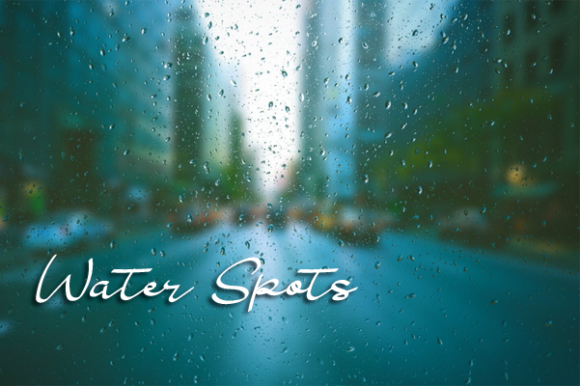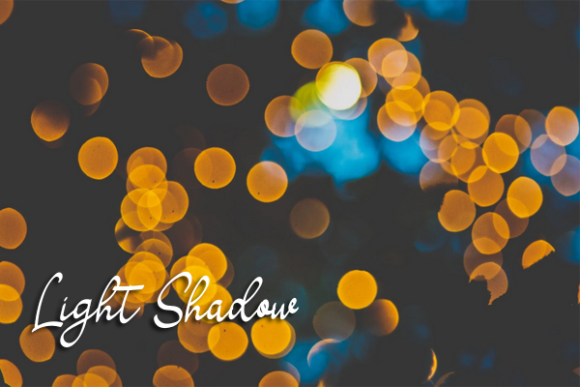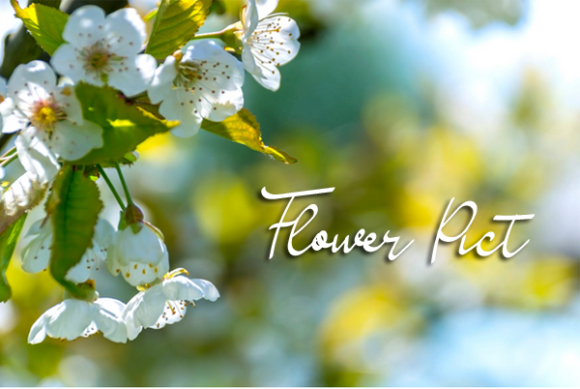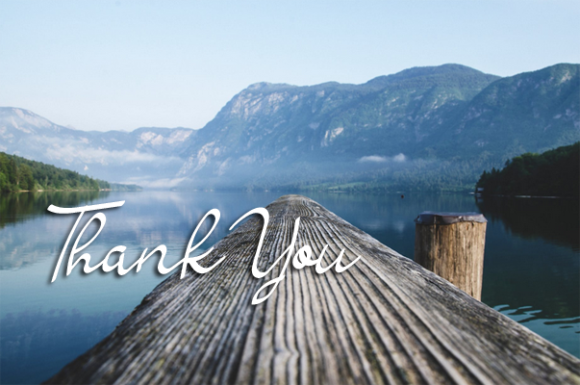
Introducing Halilintar Font: The Epitome of Elegance and Sophistication
Are you on the hunt for a font that exudes beauty, elegance, and refinement? Look no further than Halilintar Font, a stunning lettered and graceful script font that is sure to captivate your audience. With its ravishing style and versatility, Halilintar is the perfect choice for designers and crafters seeking to create breathtaking wedding invitations, exquisite stationary art, eye-catching social media posts, and more.
The Beauty of Halilintar Font
Halilintar Font is a masterpiece of typographic design, boasting a unique blend of classic elegance and modern flair. Its flowing lines, delicate curves, and intricate details make it a true showstopper, perfect for projects that demand a touch of sophistication. Whether you’re designing a wedding invitation, a social media post, or a piece of stationary art, Halilintar is sure to impress.
What Makes Halilintar Font So Special?
So, what sets Halilintar Font apart from other fonts? Here are just a few reasons why this font is a cut above the rest:
- Unique and Elegant Design: Halilintar Font features a distinctive and refined design that is sure to turn heads. Its elegant lines, curves, and flourishes make it perfect for creating stunning visual content.
- Versatile and Flexible: Halilintar is a highly versatile font that can be used for a wide range of projects, from wedding invitations and stationary art to social media posts and more.
- Easy to Read and Understand: Despite its ornate design, Halilintar Font is surprisingly easy to read and understand, making it perfect for both digital and print applications.
- Highly Customizable: With Halilintar Font, you have the freedom to experiment with different styles, colors, and effects to create a truly unique look that reflects your brand or personal style.
Ideas for Using Halilintar Font
Now that you’ve fallen in love with Halilintar Font, here are some ideas to get you started:
- Wedding Invitations: Create breathtaking wedding invitations that set the tone for a fairytale-like celebration.
- Stationary Art: Design exquisite stationary art, including greeting cards, thank-you cards, and more.
- Social Media Posts: Create eye-catching social media posts that grab attention and drive engagement.
- Branding and Packaging: Use Halilintar Font to create a cohesive brand identity that exudes elegance and sophistication.
- Signage and Displays: Make a statement with stunning signage and displays that showcase your brand or message.
Tips for Getting the Most Out of Halilintar Font
To ensure you get the most out of Halilintar Font, here are some expert tips:
- Experiment with Colors and Effects: Don’t be afraid to try out different colors, textures, and effects to create a unique look that reflects your brand or personal style.
- Pair with Complementary Fonts: Combine Halilintar Font with complementary fonts to create visual interest and hierarchy.
- Use for Headings and Titles: Use Halilintar Font for headings and titles to create a striking visual impact.
- Pay Attention to Kerning and Spacing: Make sure to adjust kerning and spacing to ensure your text looks polished and refined.
In conclusion, Halilintar Font is a beautiful and elegant script font that is sure to captivate your audience. With its unique design, versatility, and ease of use, it’s the perfect choice for designers and crafters seeking to create stunning visual content. Whether you’re designing wedding invitations, stationary art, social media posts, or more, Halilintar Font is sure to impress. So why wait? Fall in love with Halilintar Font today and take your designs to the next level!